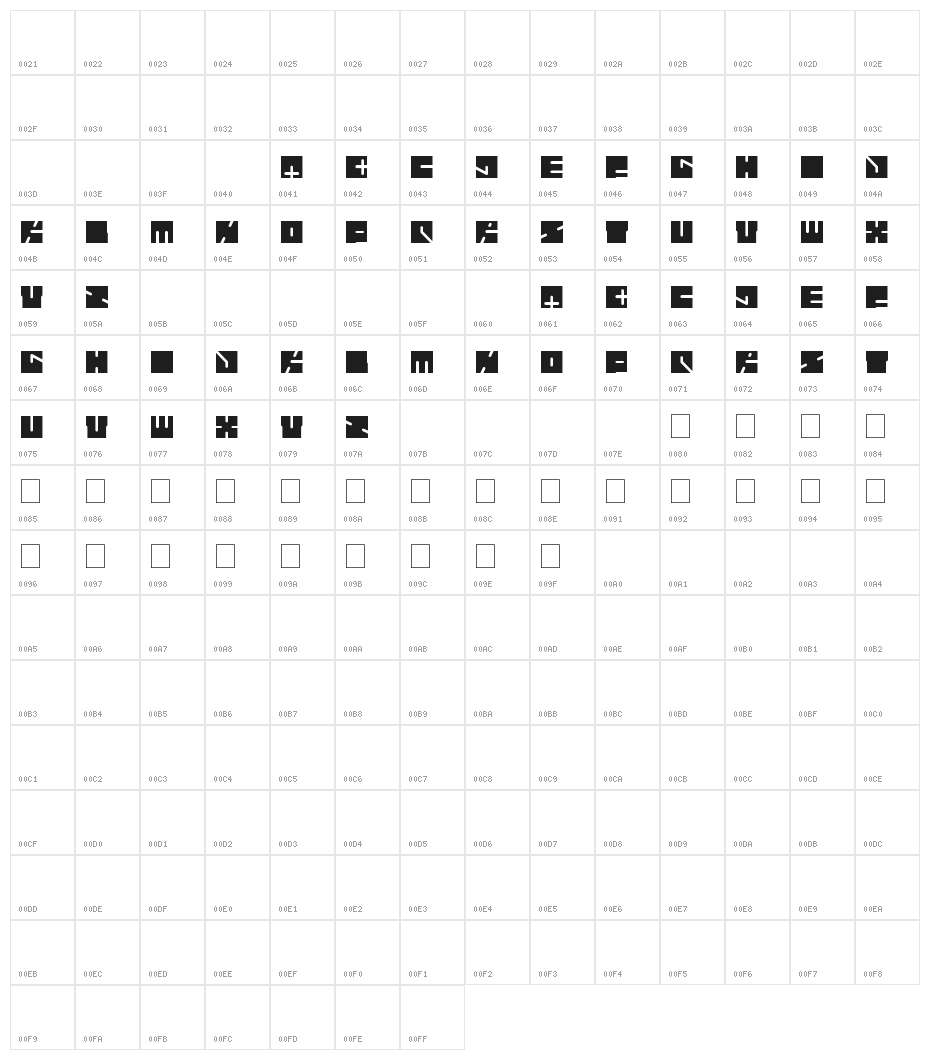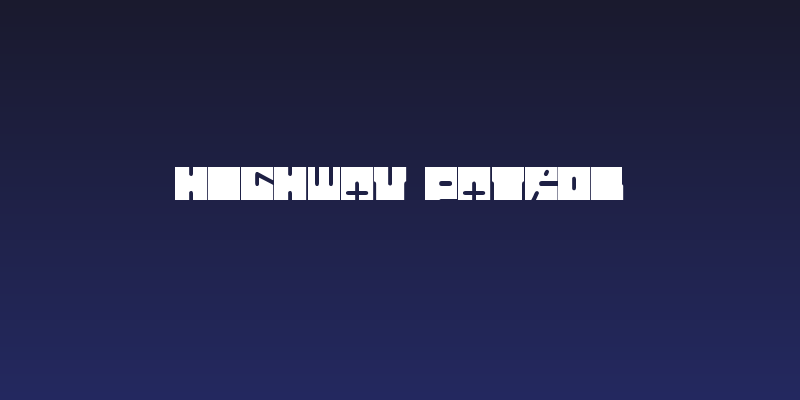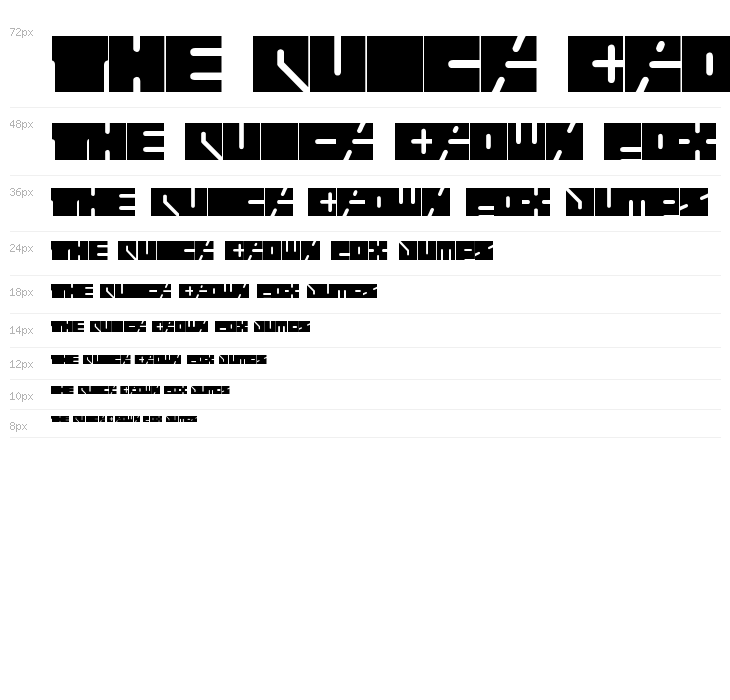
HIGHWAY PATROL Font
HIGHWAY PATROL Description
This font features a bold, geometric design with a futuristic and digital aesthetic. Each character is enclosed within a square, creating a uniform and structured appearance. The strokes are thick and consistent, with sharp angles and straight lines dominating the design. The font has a distinctly modern and tech-inspired look, making it ideal for projects that require a strong visual impact. The characters are evenly spaced within their squares, ensuring clarity and readability despite the unconventional style. This font is particularly suited for digital displays, signage, and branding that aims to convey innovation and modernity.
Proposed ProjectsIdeal for digital displays, tech branding, signage, and innovative design projects.